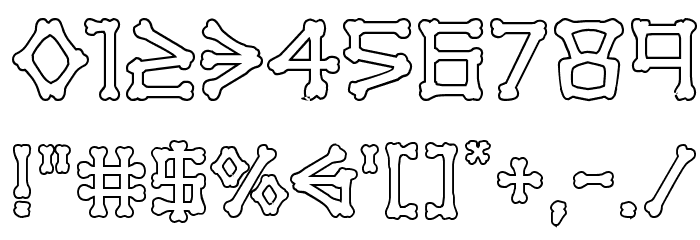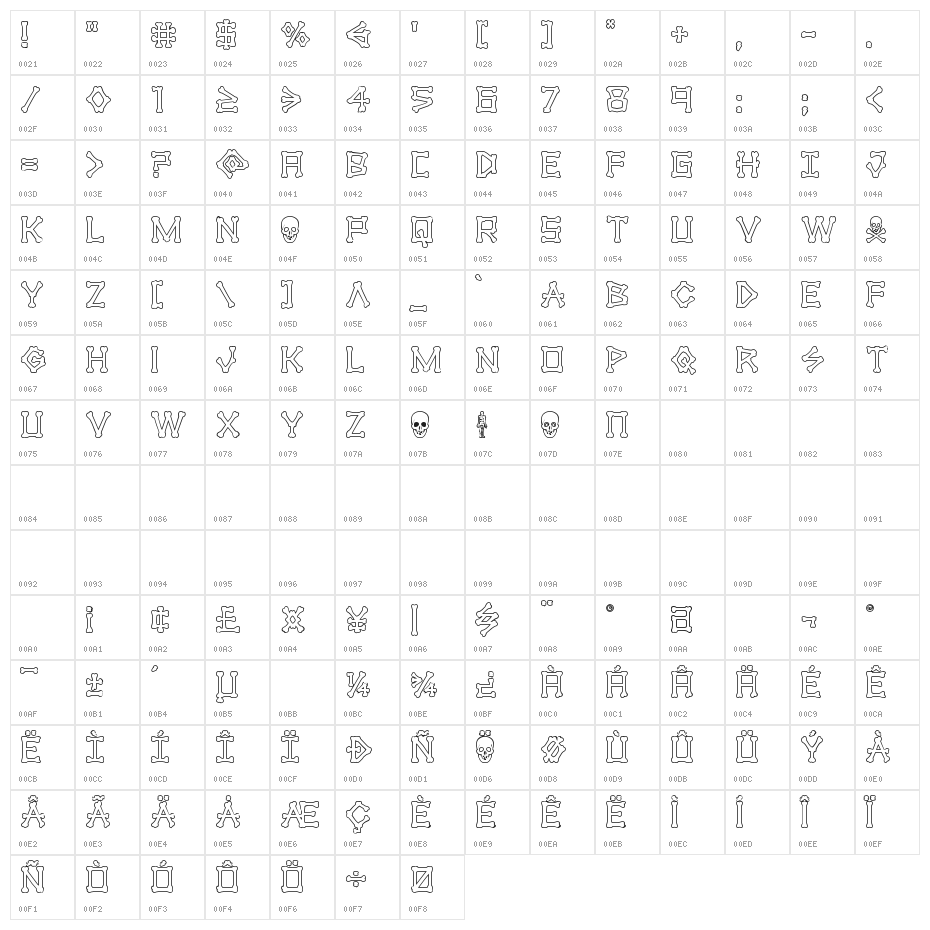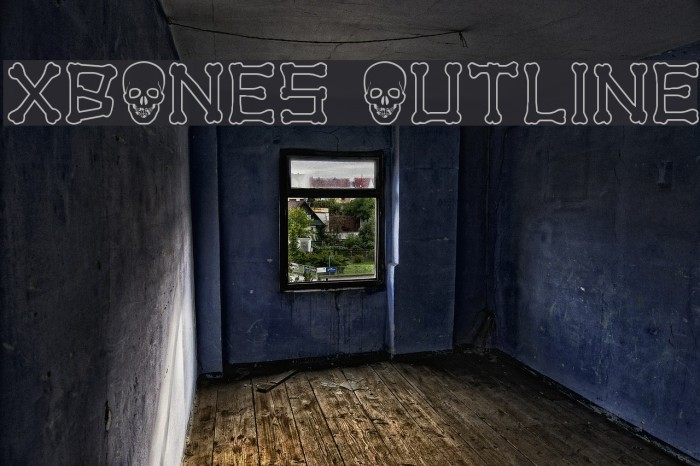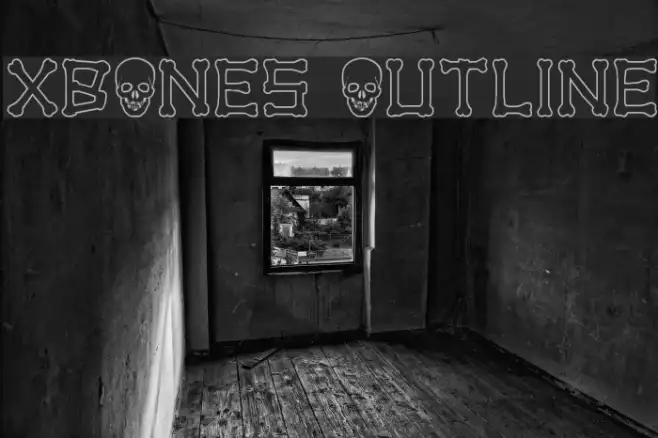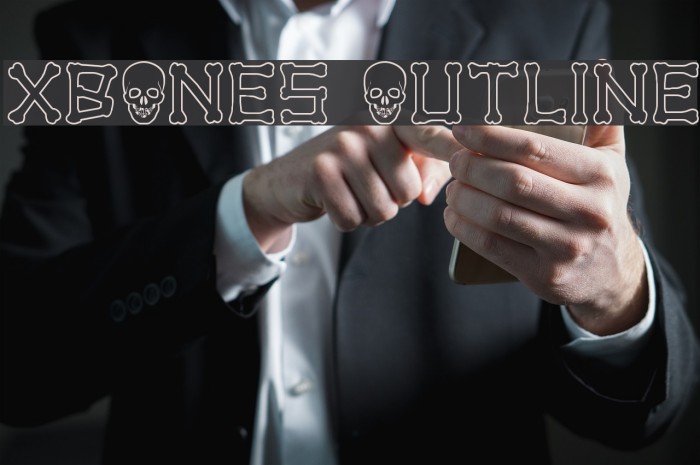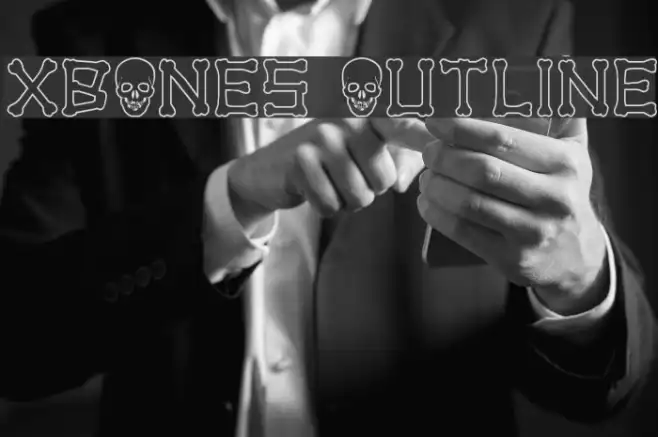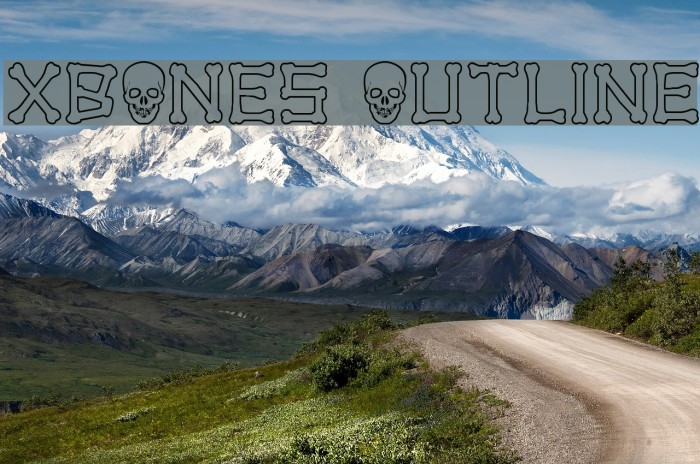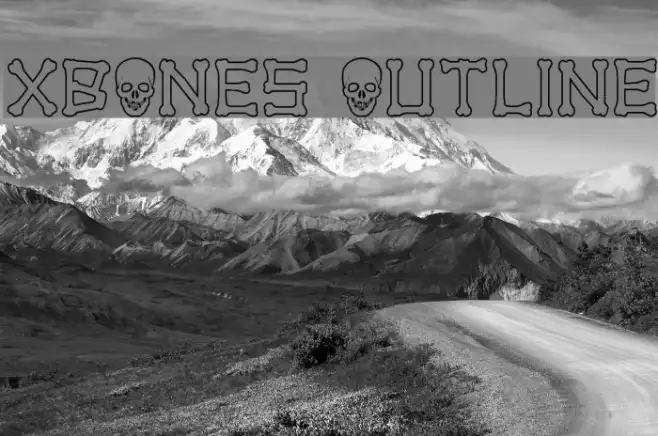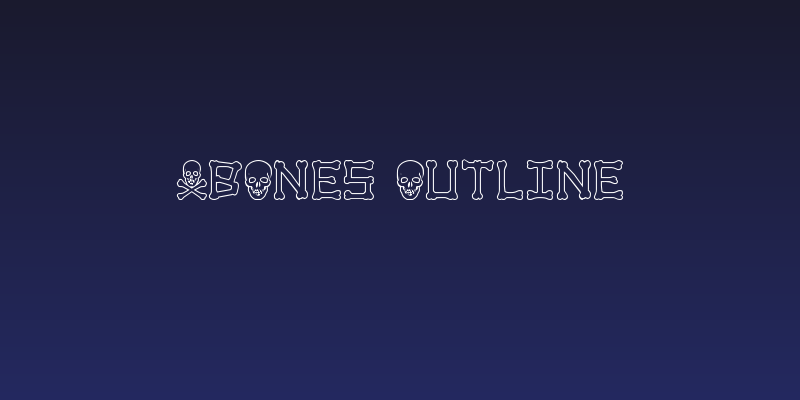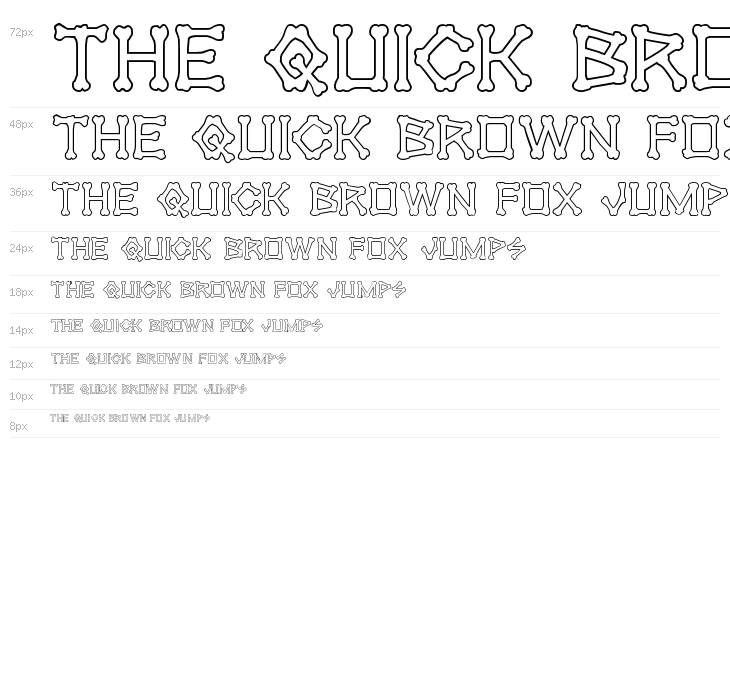
xBONES Outline Font
xBONES Outline Description
This font features a unique and playful design, with each character crafted to resemble bones. The outline style adds a distinctive touch, making it stand out with its skeletal appearance. The uppercase and lowercase letters maintain a consistent bone-like structure, while the numbers and special characters follow the same thematic design. This font is perfect for Halloween-themed projects or any design that requires a spooky or quirky aesthetic. The characters are evenly spaced, ensuring readability while maintaining the decorative style.
| Proposed Projects | Ideal for Halloween invitations, themed posters, children's books, or any project requiring a fun, eerie touch. |